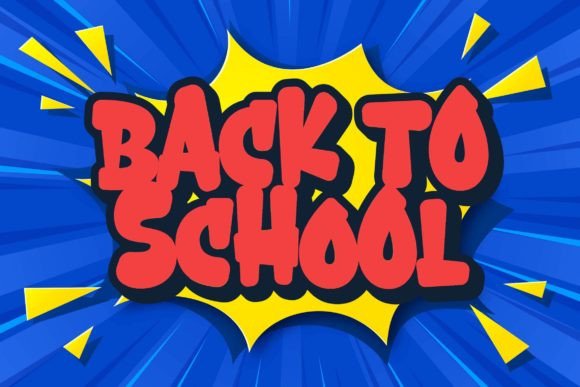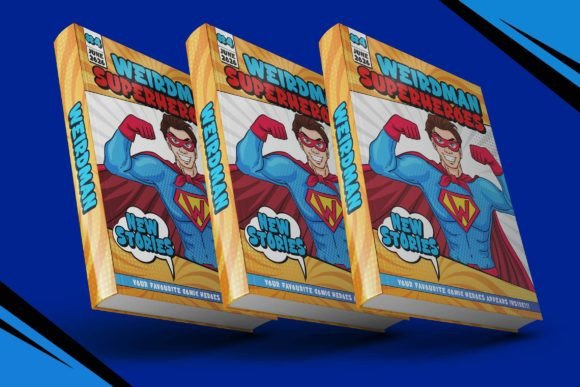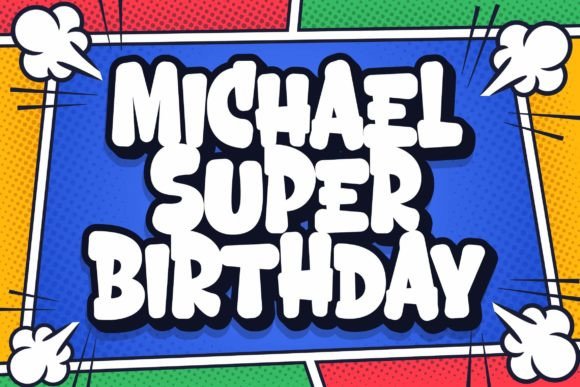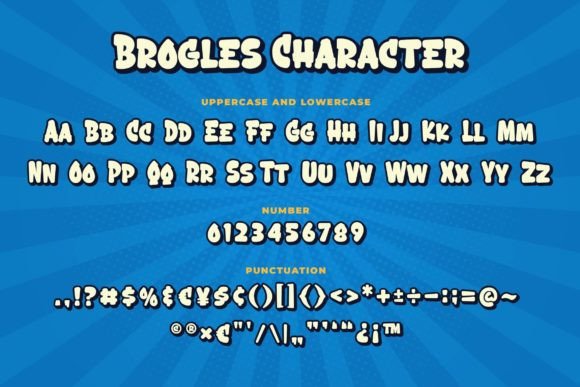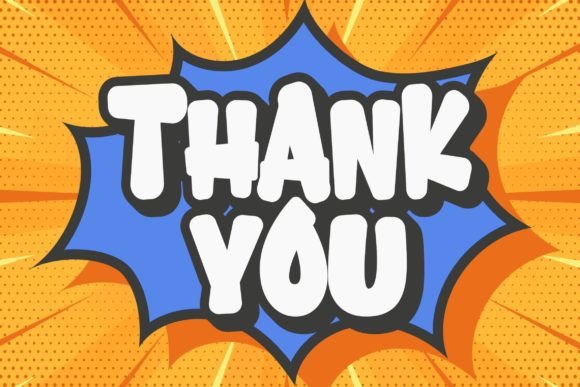
Brogles Font: The Ultimate Choice for Playful and Creative Designs
Are you looking for a font that can add a touch of playfulness and authenticity to your designs? Look no further than Brogles Font! This cute and colorful display font is perfect for any children activity or school project, and is sure to make your designs come alive.
What is Brogles Font?
Brogles Font is a chunky lettered font that is designed to embody playfulness and authenticity. Its bold and colorful design makes it perfect for use in children’s activities, school projects, and other creative endeavors. Whether you’re a designer, teacher, or parent, Brogles Font is a great choice for anyone looking to add a fun and playful touch to their designs.
Characteristics of Brogles Font
So, what makes Brogles Font so special? Here are just a few of its key characteristics:
- Cute and Colorful: Brogles Font features a bold and colorful design that is sure to grab attention.
- Playful and Authentic: This font embodies playfulness and authenticity, making it perfect for use in children’s activities and school projects.
- Chunky Lettered: The chunky lettered design of Brogles Font makes it easy to read and fun to use.
- Versatile: Brogles Font can be used in a variety of creative endeavors, from posters and flyers to worksheets and activity sheets.
Uses for Brogles Font
So, what can you use Brogles Font for? The possibilities are endless! Here are just a few ideas to get you started:
- Children’s Activities: Brogles Font is perfect for use in children’s activities, such as coloring pages, worksheets, and activity sheets.
- School Projects: This font is also great for use in school projects, such as posters, flyers, and presentations.
- Crafting: Brogles Font can be used in a variety of crafting projects, such as card making, scrapbooking, and DIY decorations.
- Design Projects: This font can also be used in design projects, such as creating posters, flyers, and brochures.
Tips for Using Brogles Font
Here are a few tips for using Brogles Font in your designs:
- Use it sparingly: While Brogles Font is fun and playful, it can be overwhelming if used too much. Use it sparingly to add a touch of playfulness to your designs.
- Pair it with other fonts: Brogles Font pairs well with other fonts, such as serif and sans serif fonts. Experiment with different font combinations to find the perfect look for your design.
- Experiment with colors: Brogles Font comes in a variety of colors, so don’t be afraid to experiment with different color combinations to find the perfect look for your design.
In conclusion, Brogles Font is a cute and colorful display font that is perfect for any children activity or school project. Its playful and authentic design makes it a great choice for designers, teachers, and parents looking to add a fun and playful touch to their designs. With its versatility and ease of use, Brogles Font is sure to become a favorite in your design arsenal.